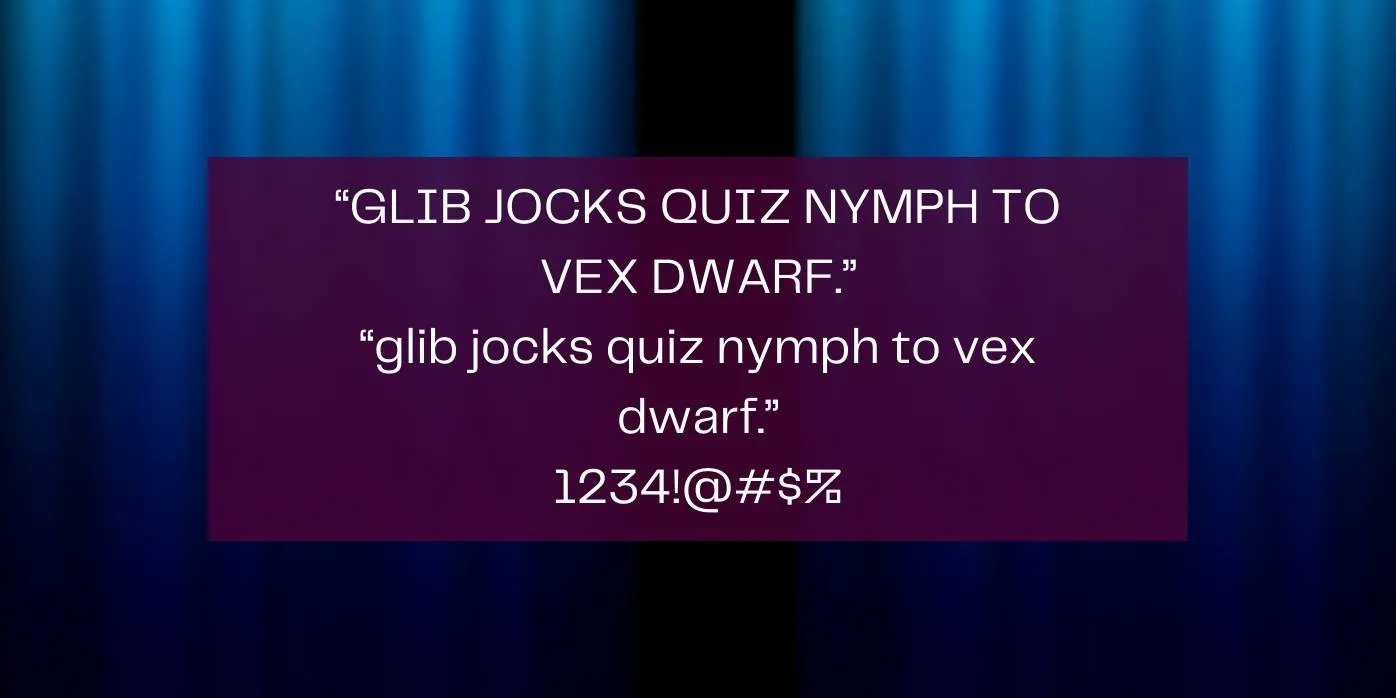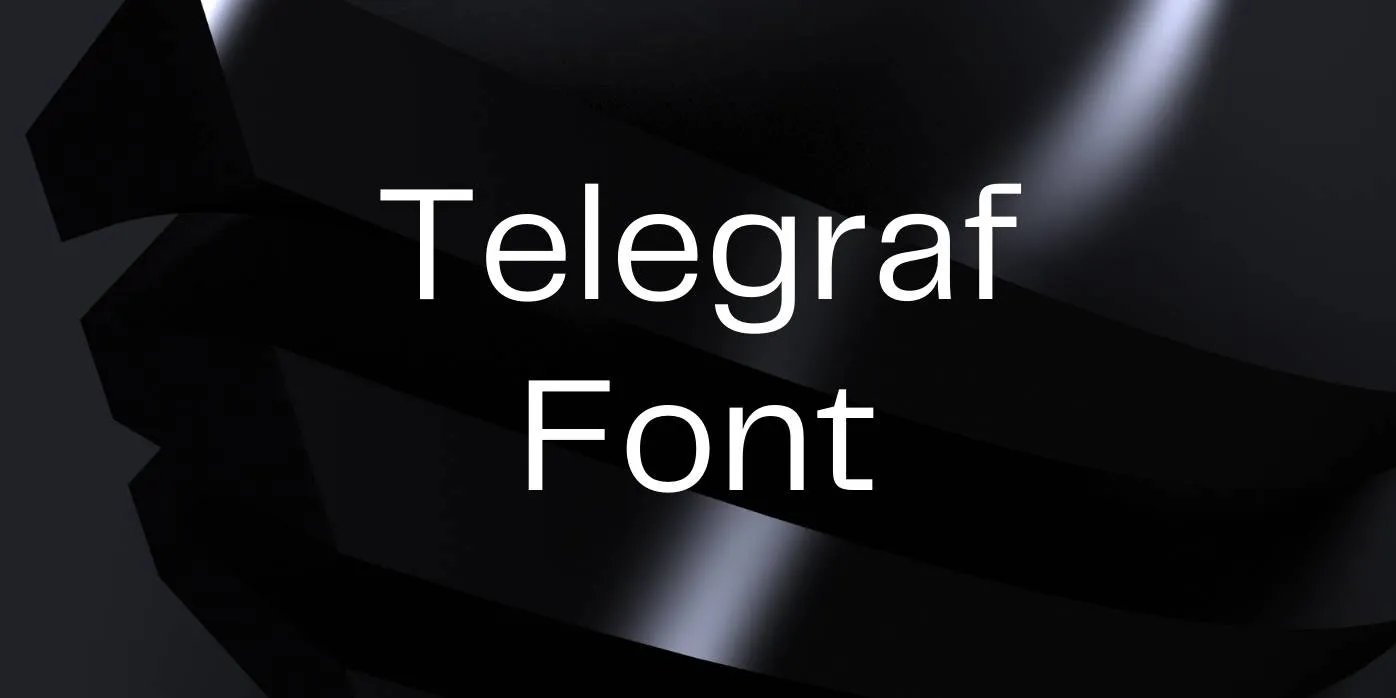
Telegraf Font
Telegraf Font is a very famous typeface that was developed by Nick Losacco. This staggering typeface belongs to the sans serif family. While developing this typeface, the main aim was to create a classic face that would be perfect for both digital and print use. As a result, this font features clean lines and sharp edges which make it highly legible.
This sans serif typeface includes 6 different styles – Regular, Bold, Italic, Black, Light, and Extra Light. All these styles come in 4 different weights – UltraLight, Thin, Regular, and Bold. Moreover, Telegraf Typeface also supports multiple languages including Cyrillic and Latin. Its alternative grand font is perfect for many designs.